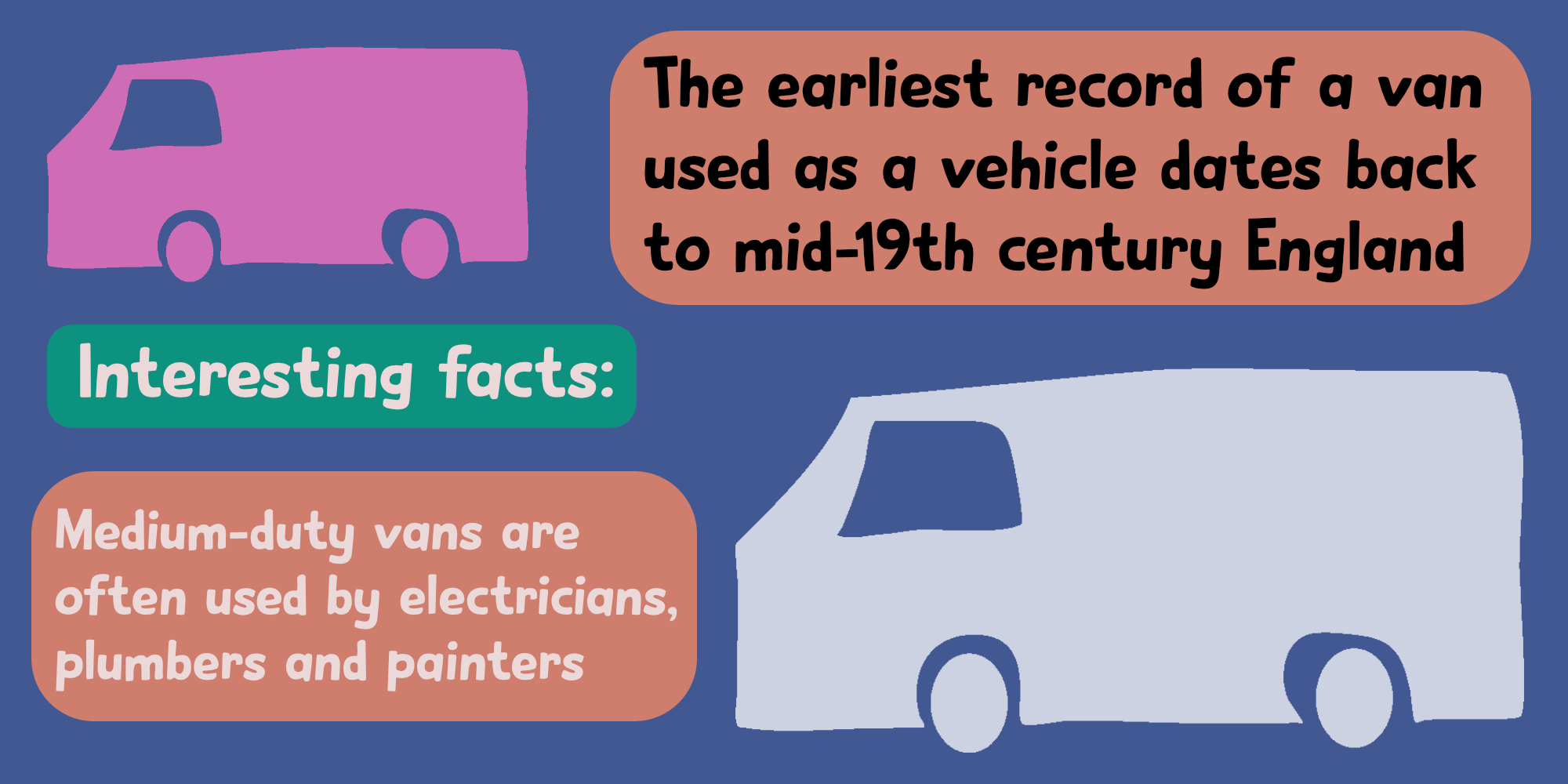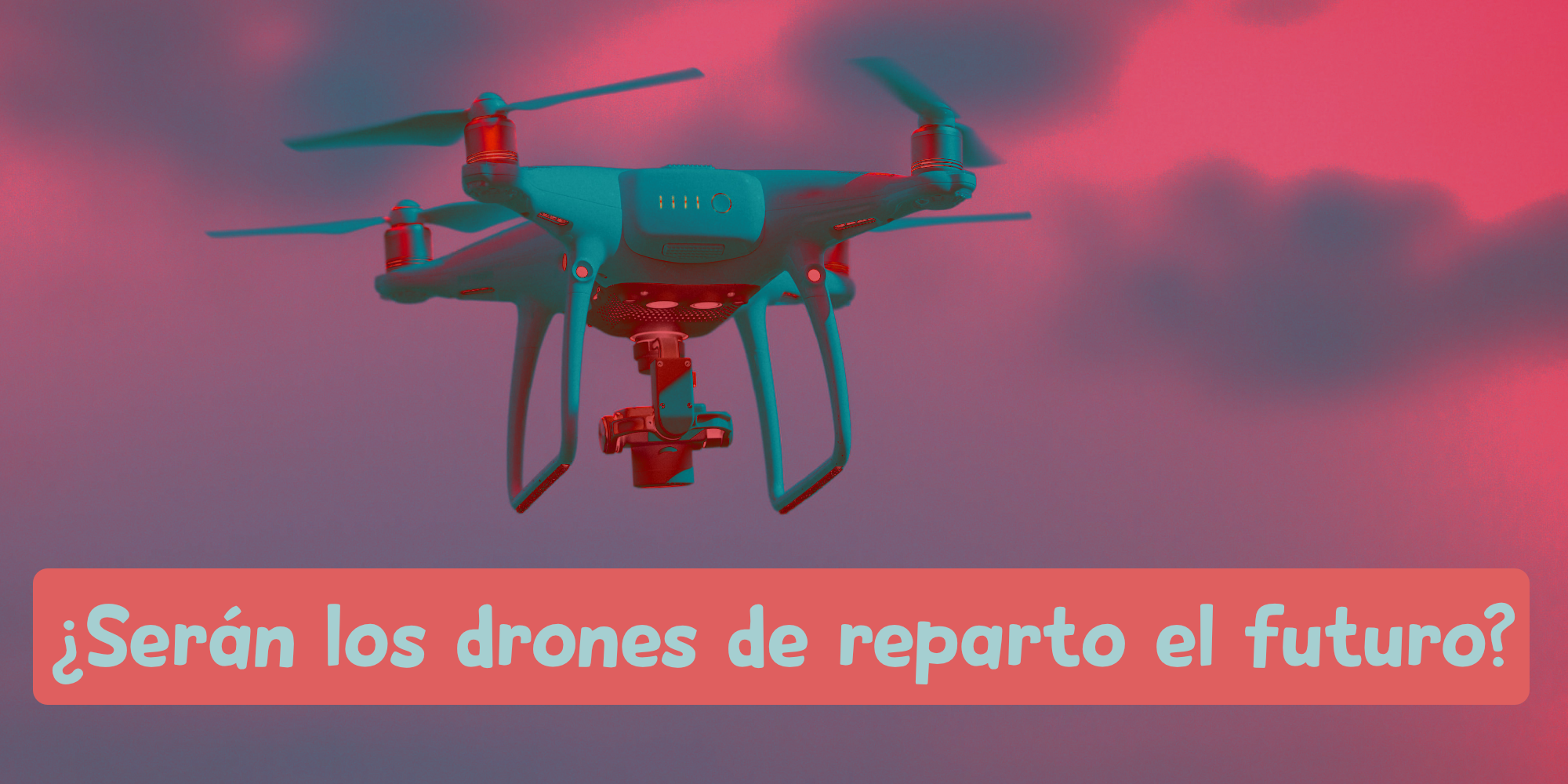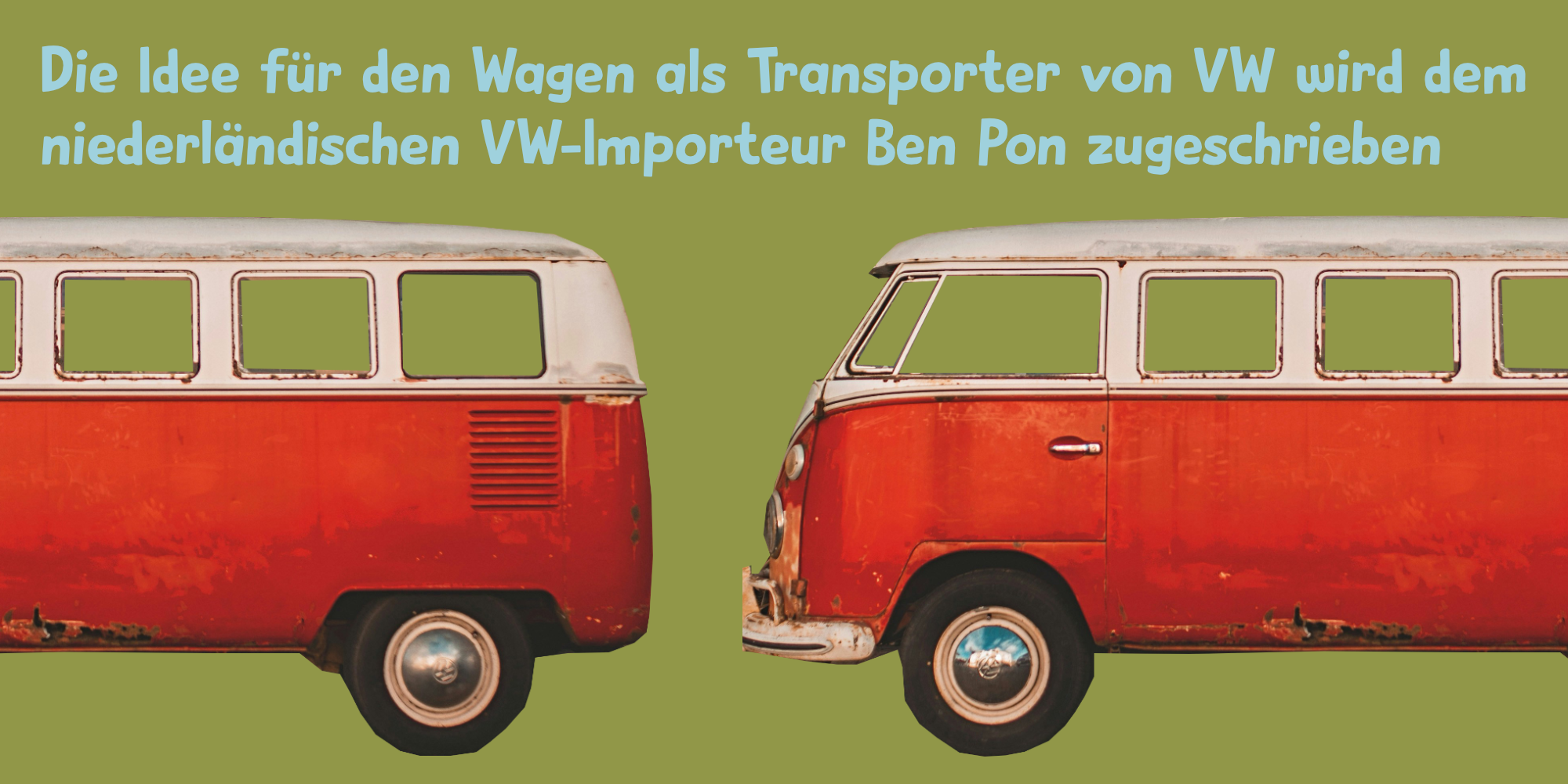
Camioneta (2 fonts)
Camioneta is a cute cartoonish font. It is friendly, rounded and wobbly, making it ideal for product packaging and book covers. Comes with extensive language support.